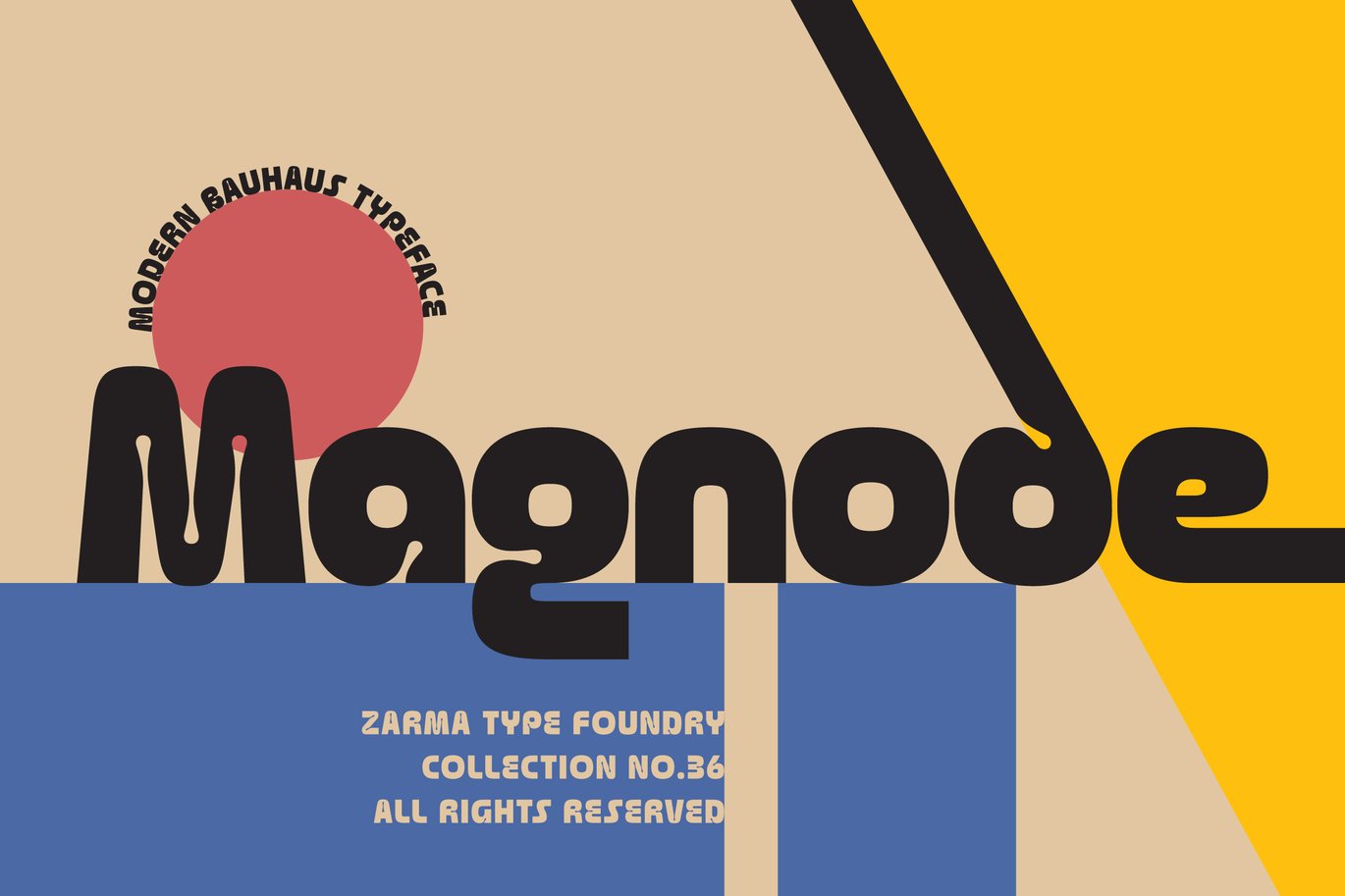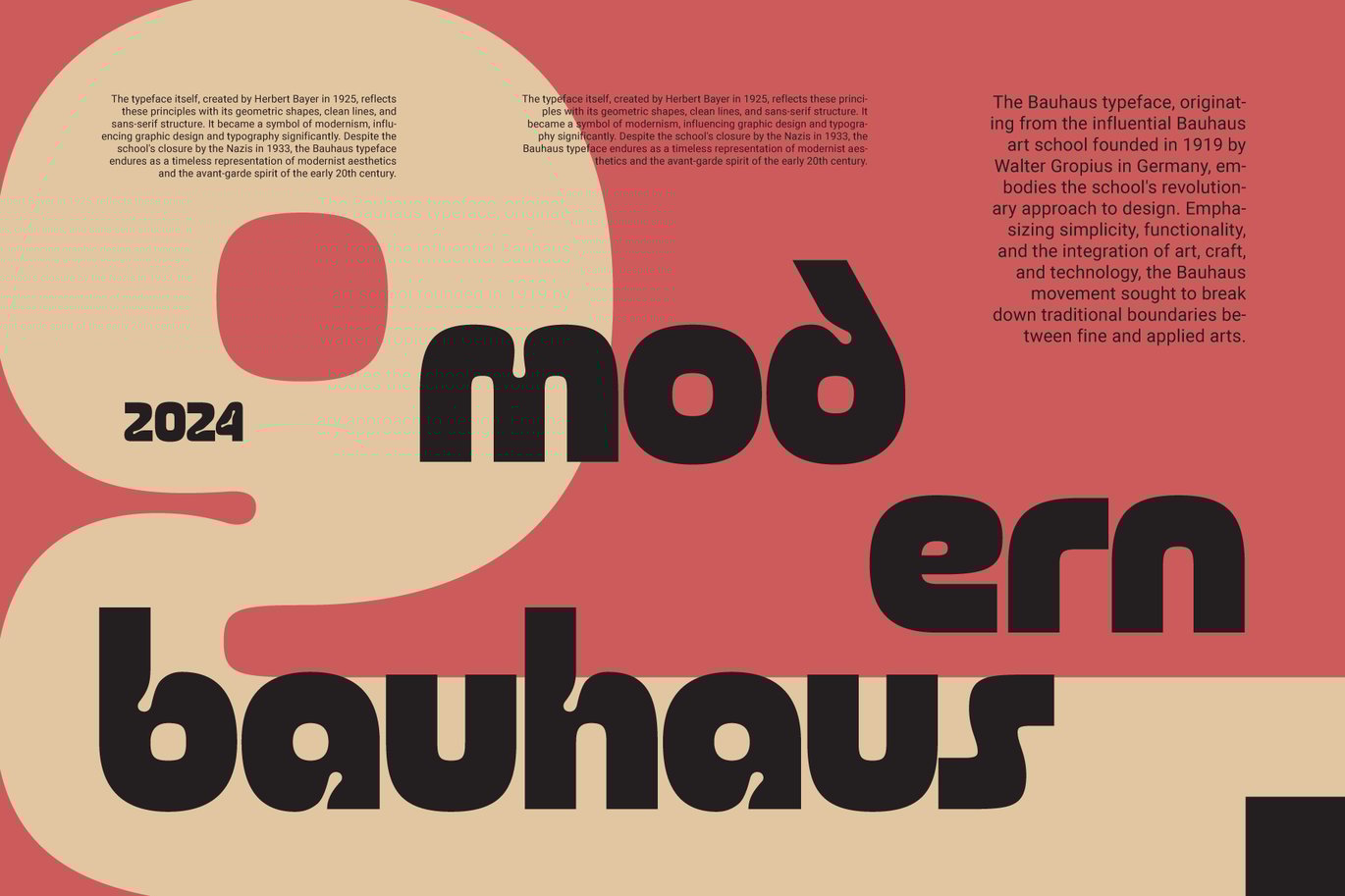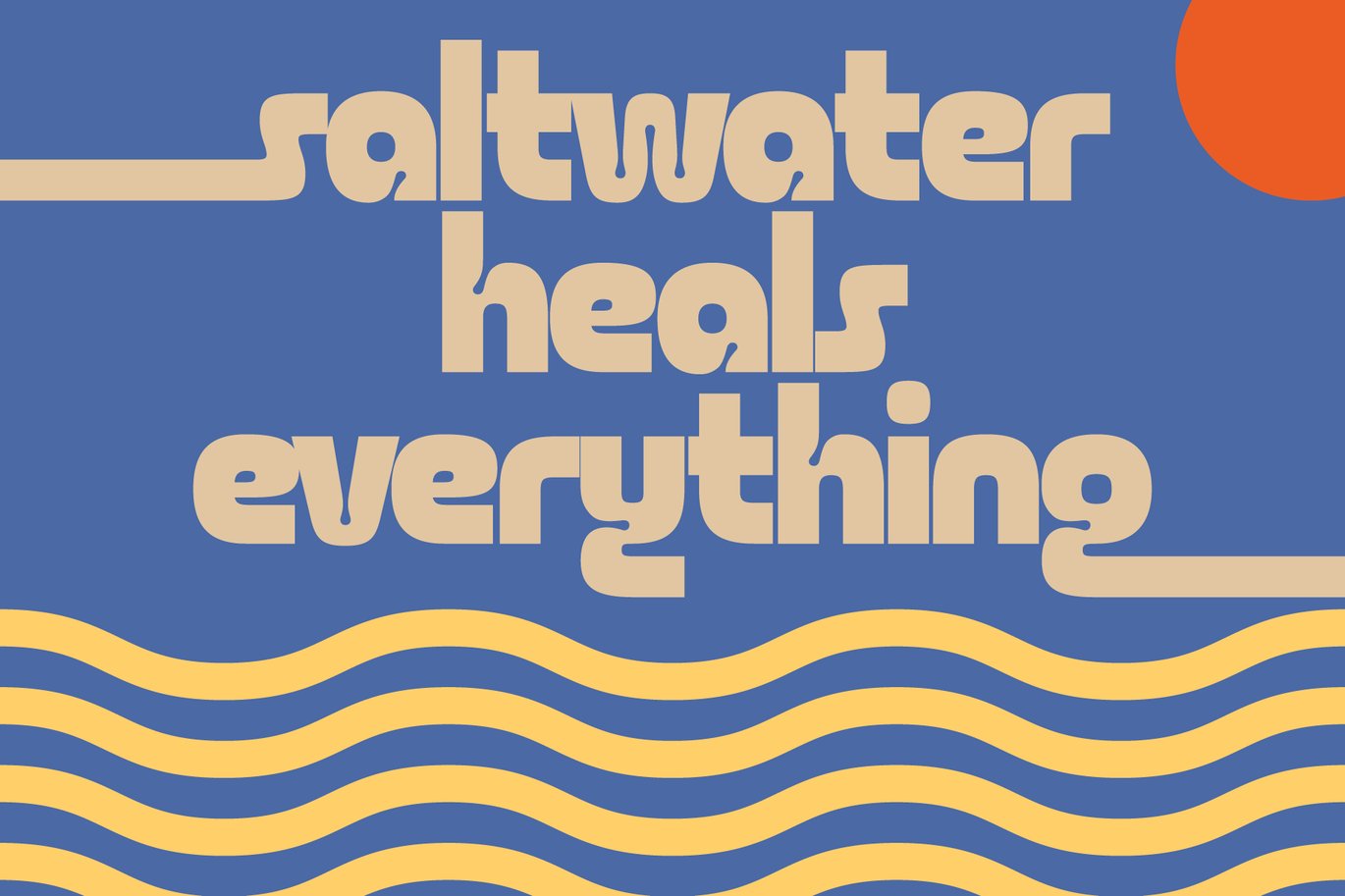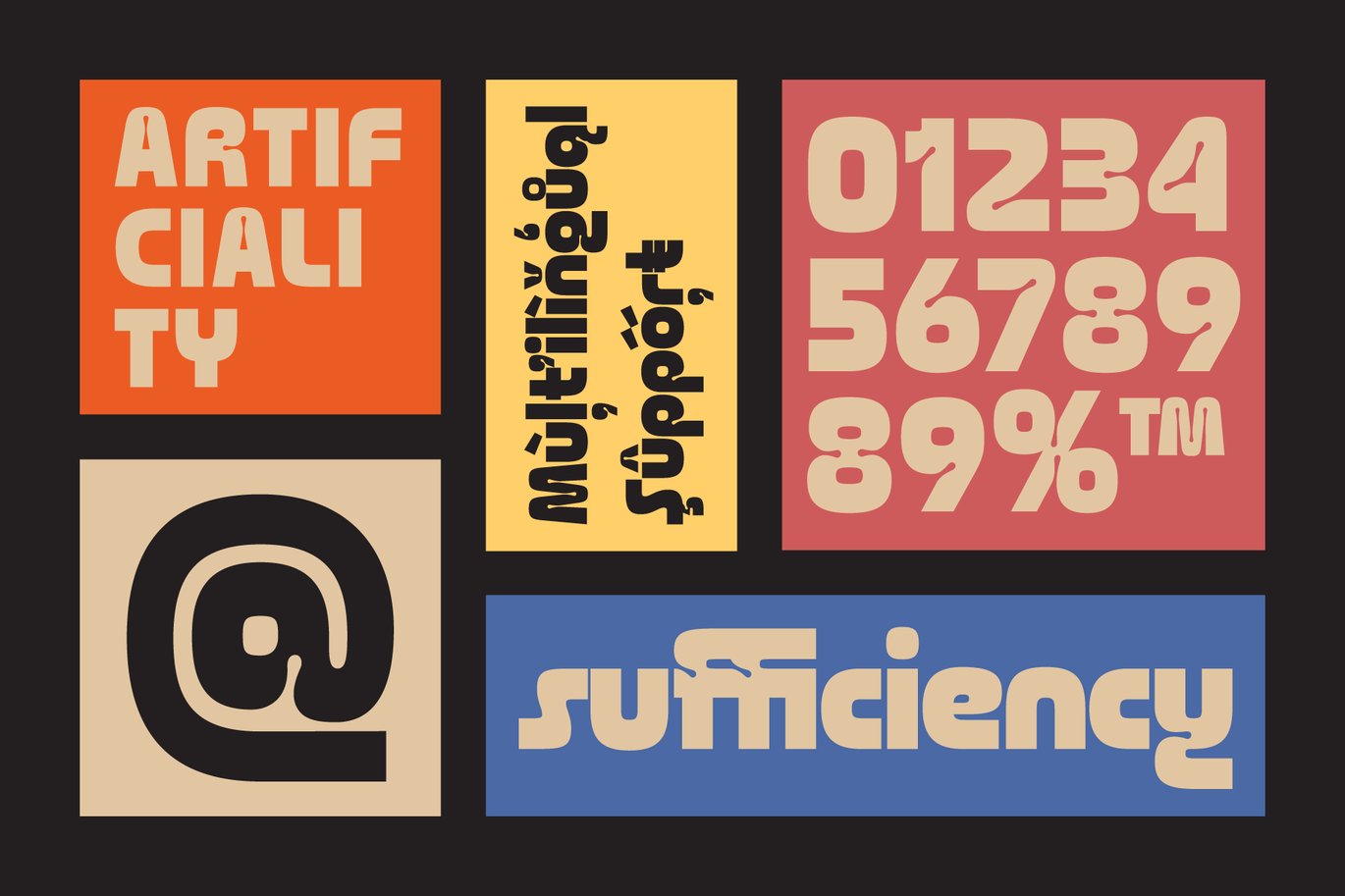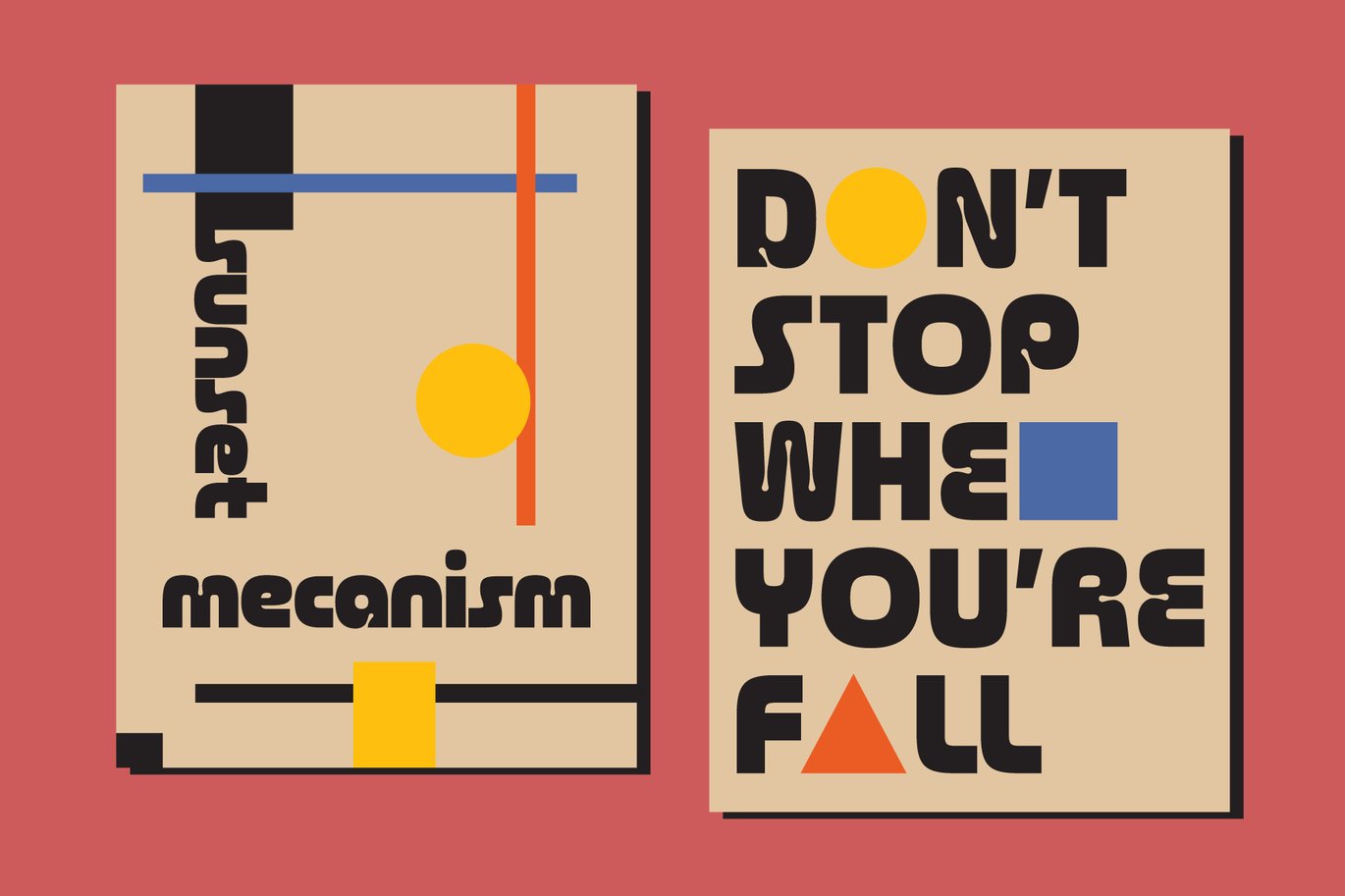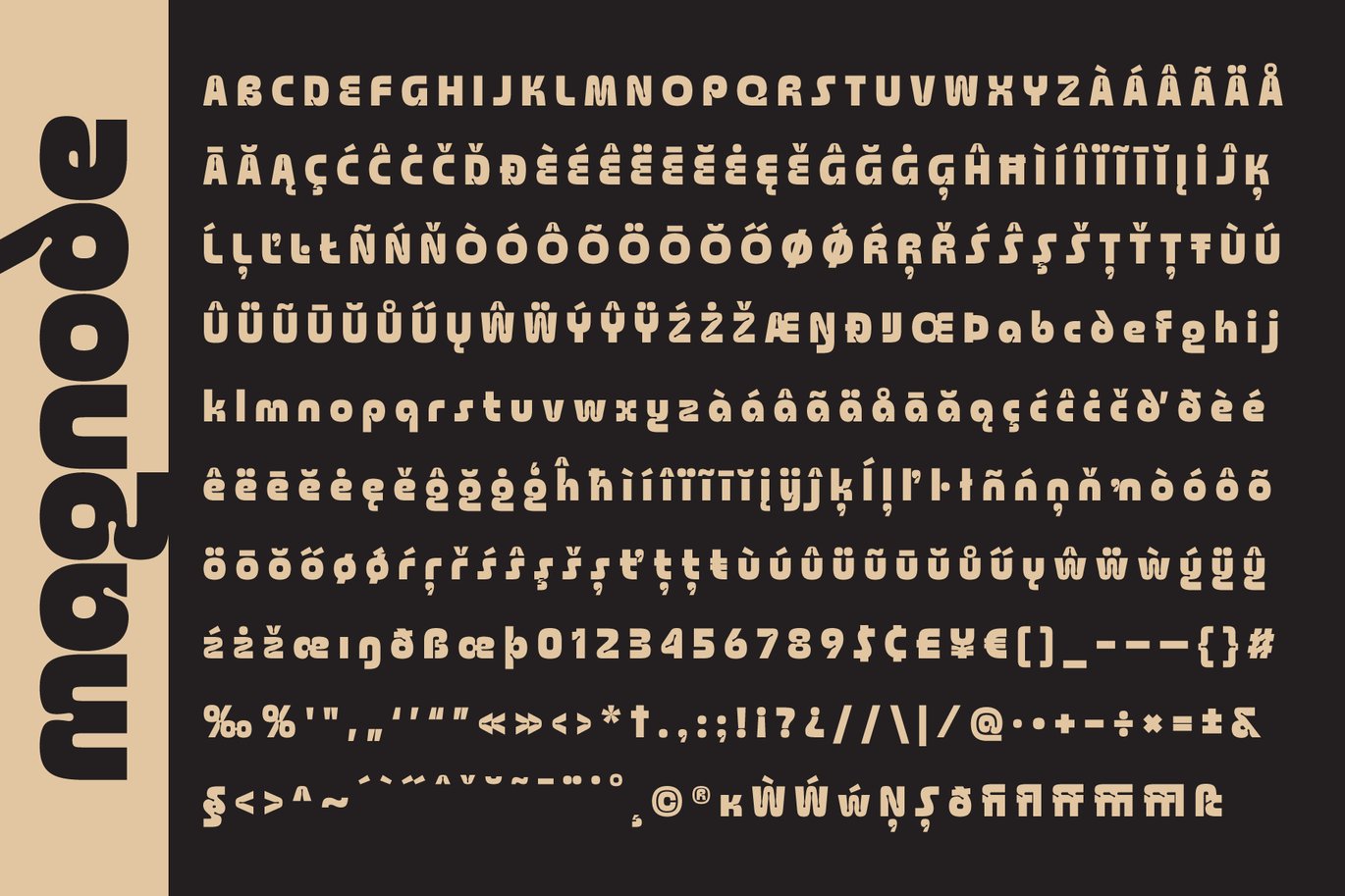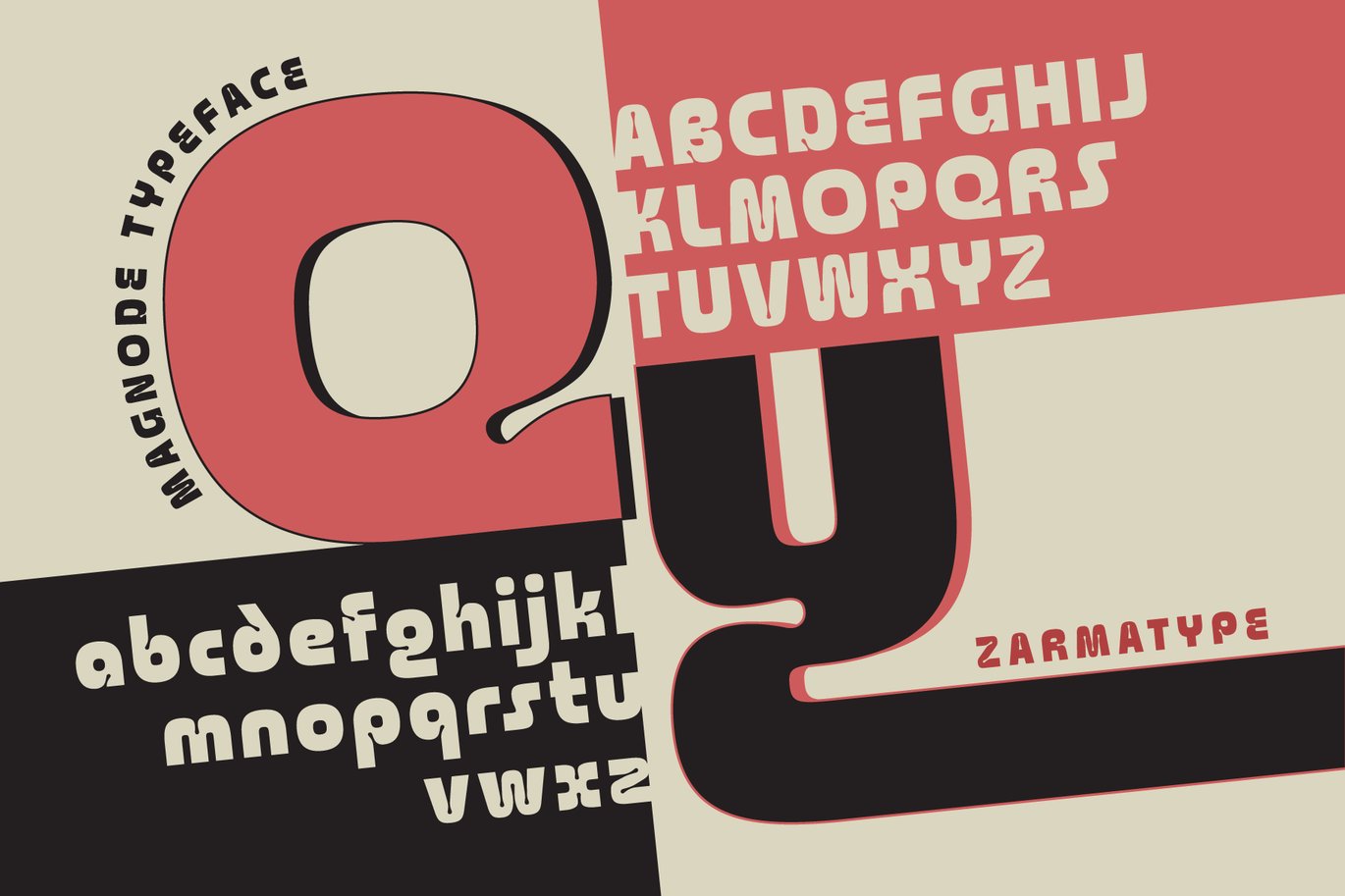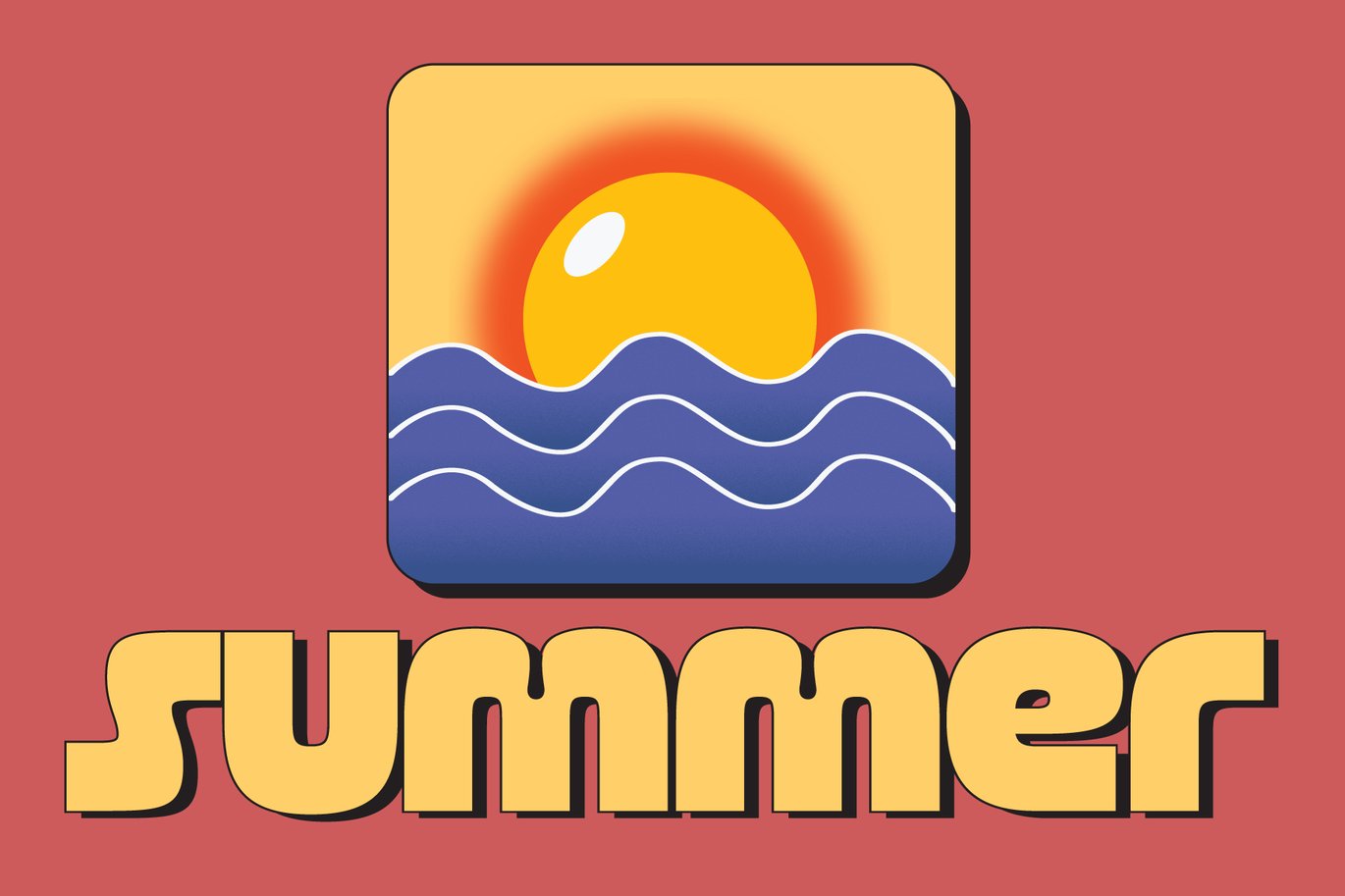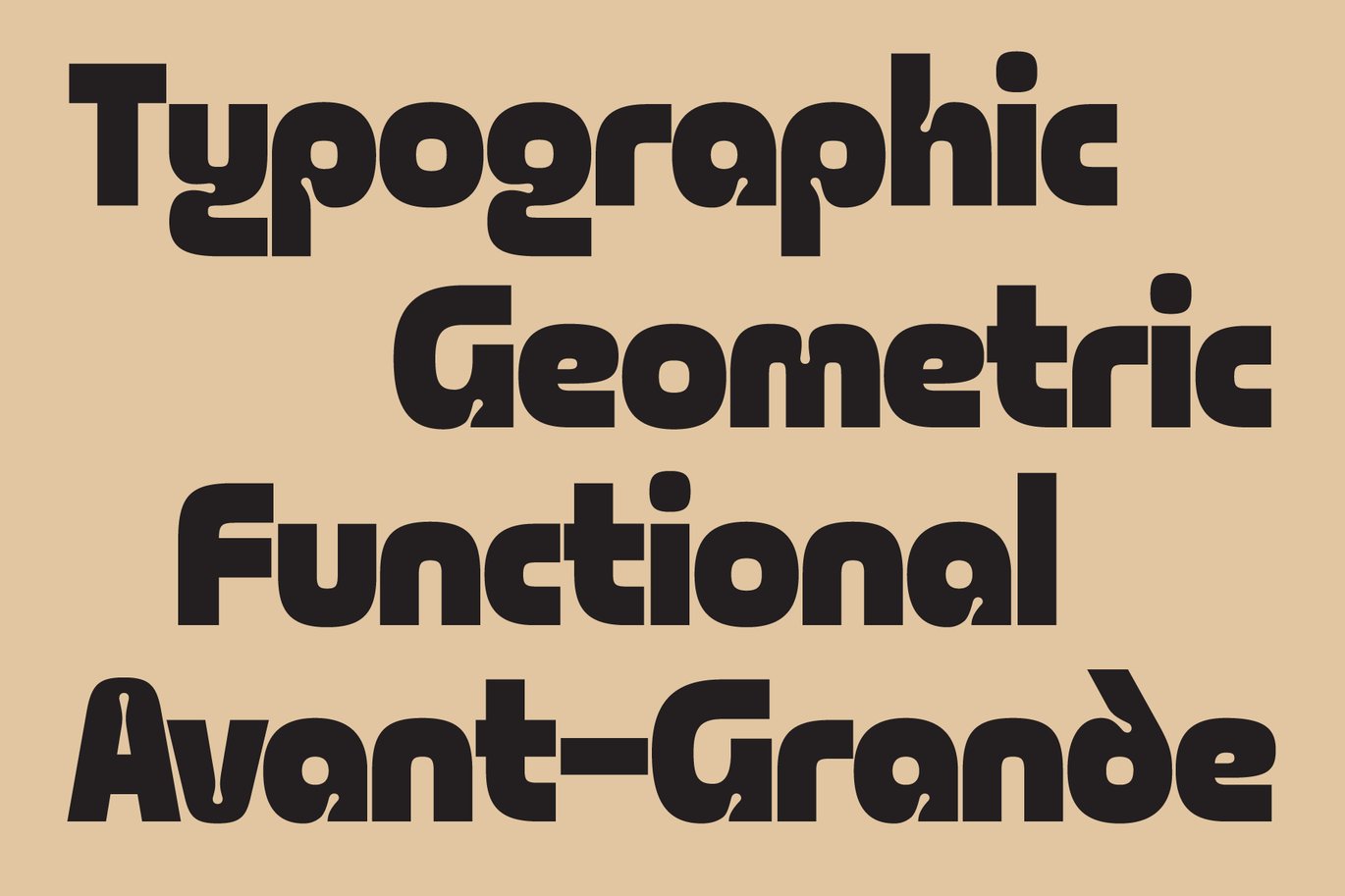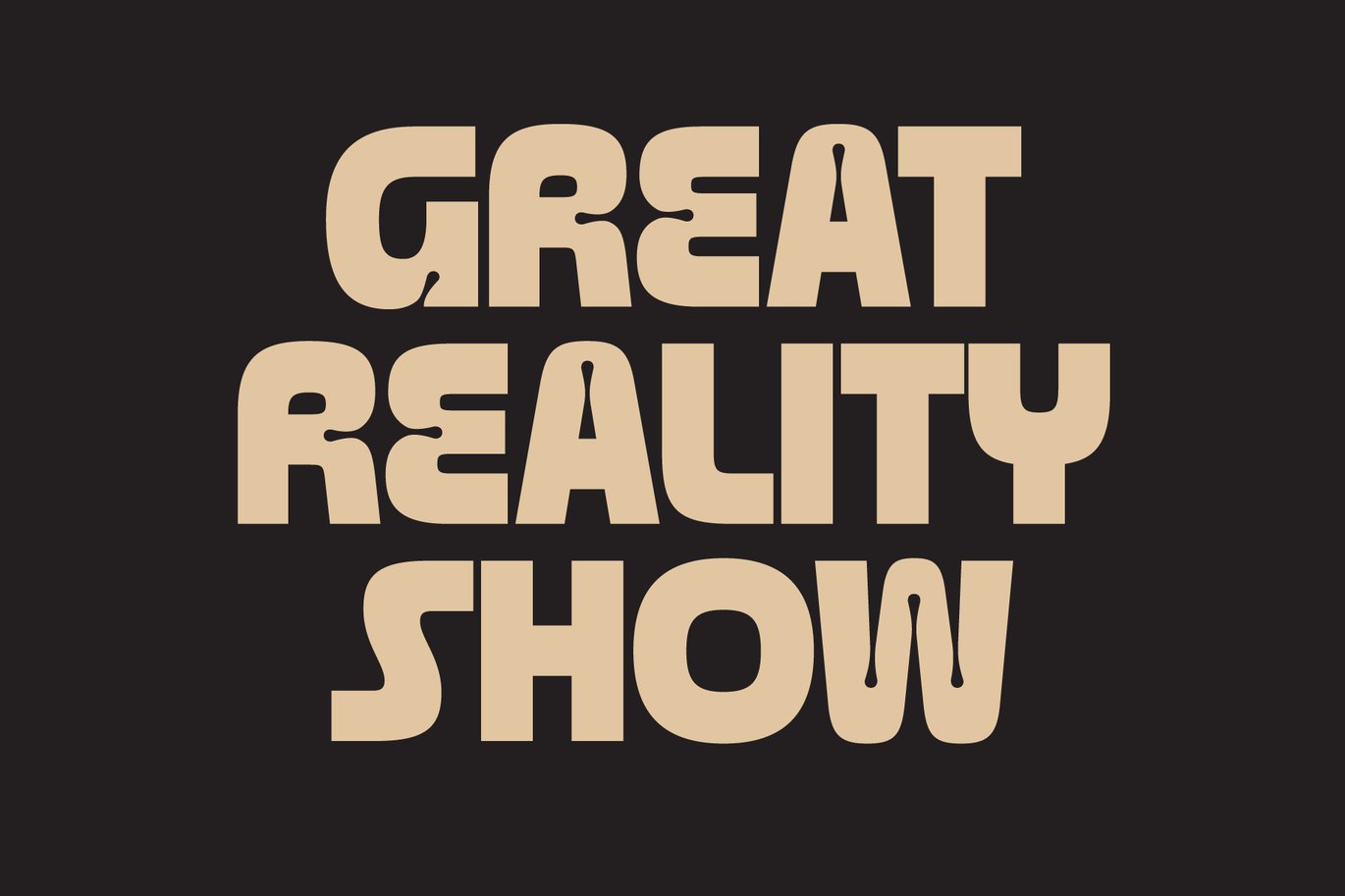
Magnode – Modern Geometric Font
Modern Geometric Font Magnode, is a sans serif font inspired by classic Bauhaus typefaces like Avant-Garde and Art Deco. While drawing from these timeless influences, Magnode incorporates unique experimental design elements such as distinctive ink traps, giving it a contemporary edge. This versatile font is perfect for modern branding, posters, and digital content, all while maintaining a vintage and retro aesthetic.
Magnode has OpenType features and an Extended Latin character set boasting over 360+ glyphs covering 85+ languages broadening its appeal for global projects. Modern Geometric Font Magnode offers extensive versatility for various design needs.